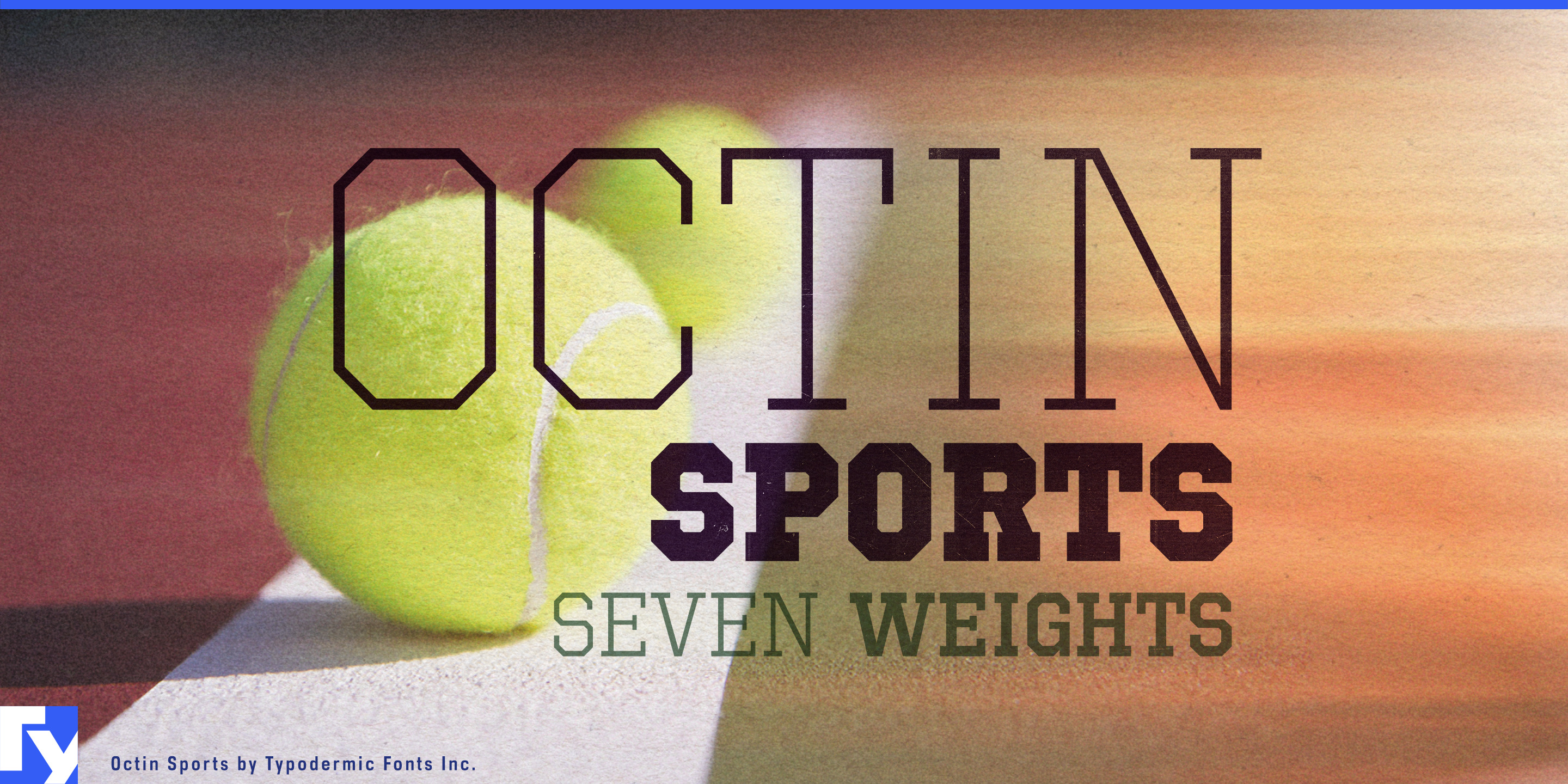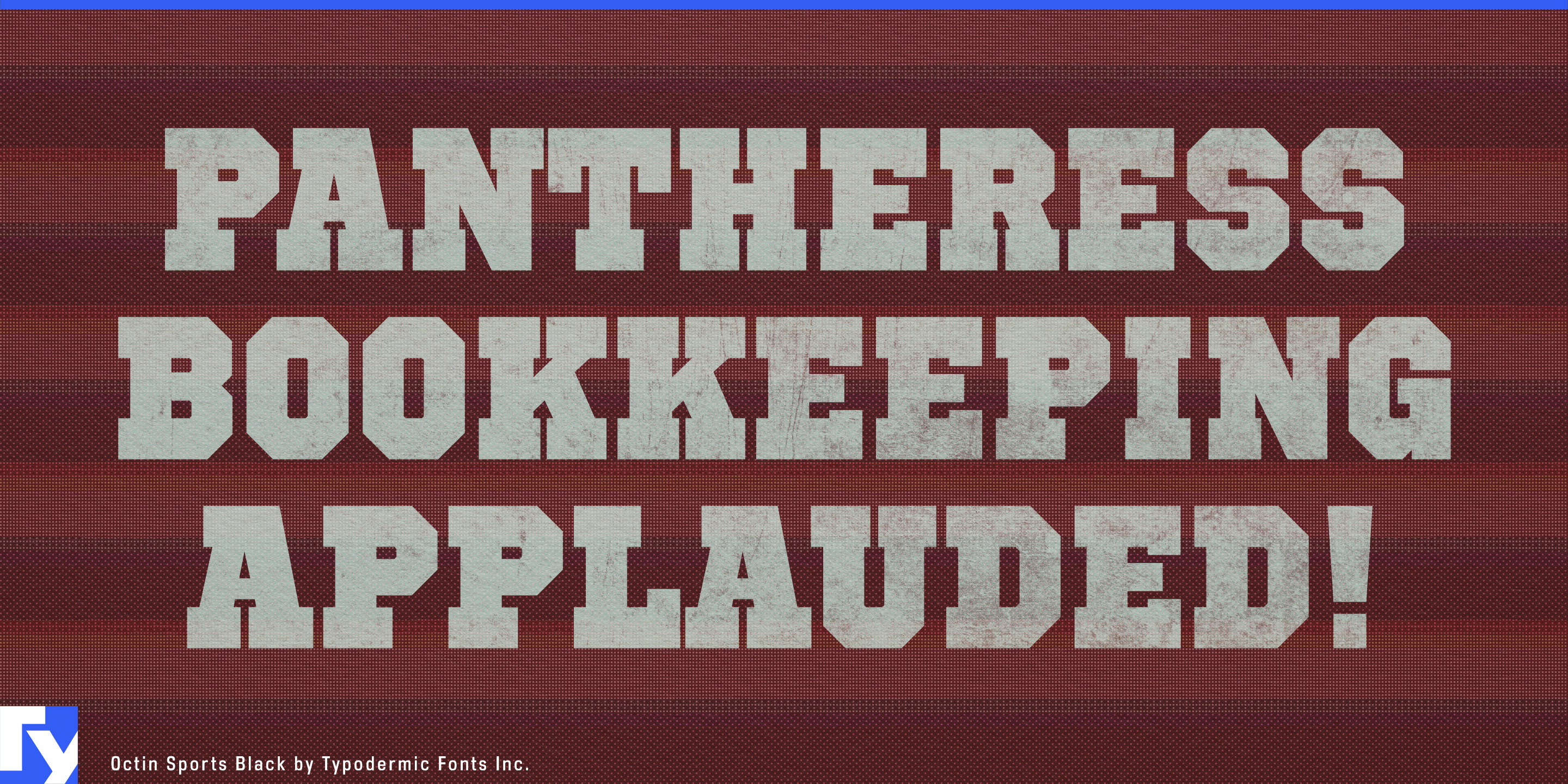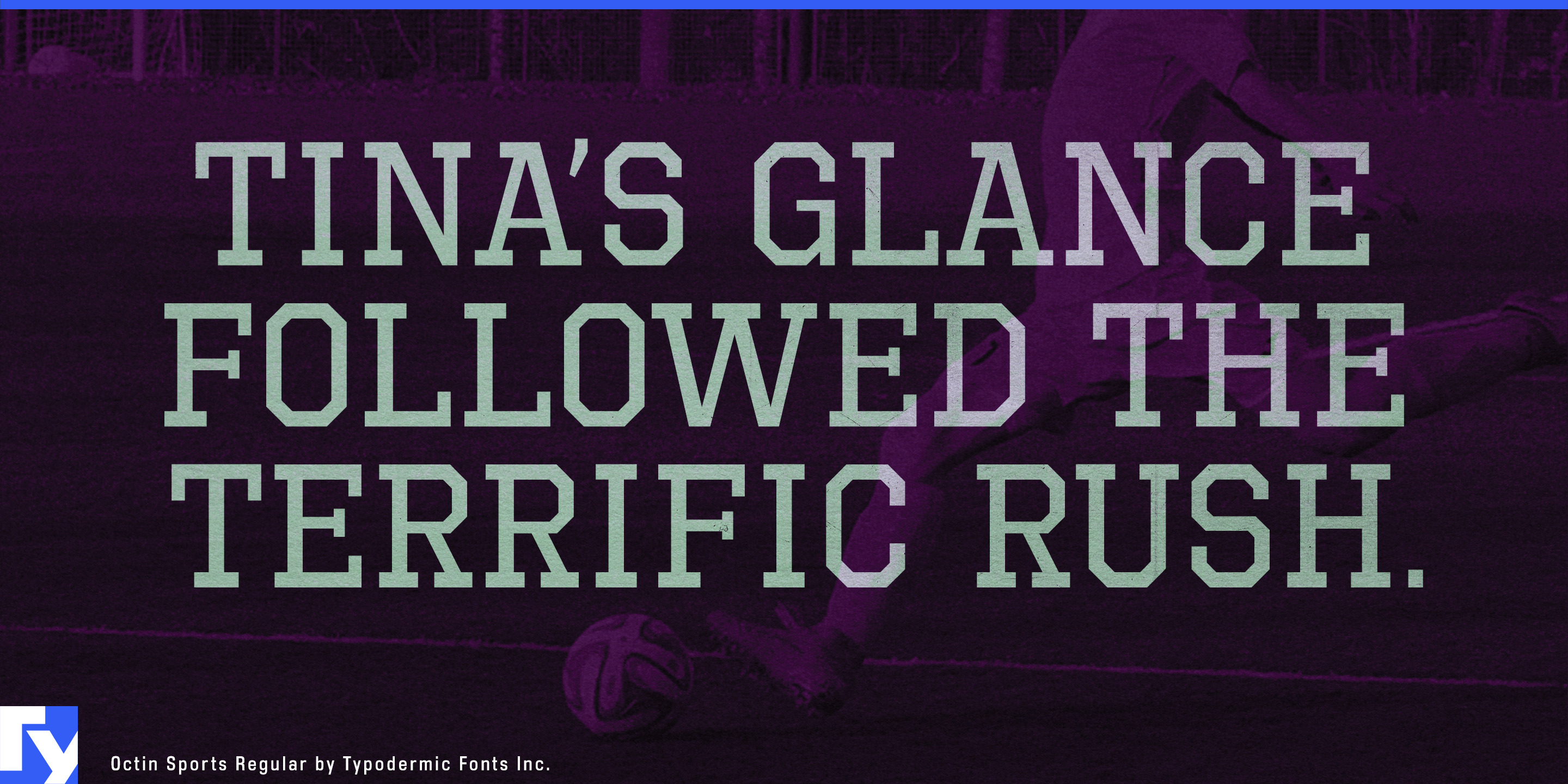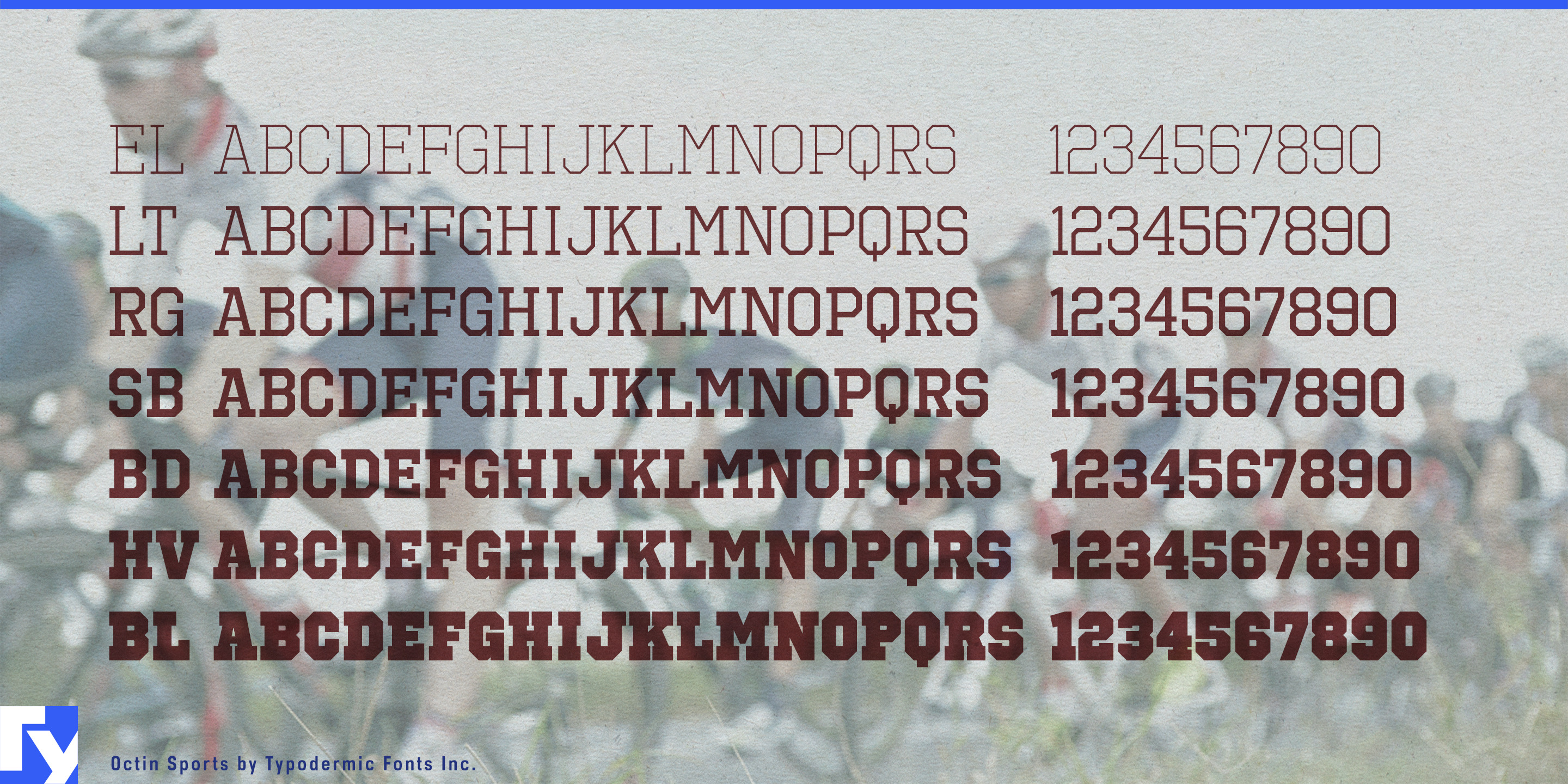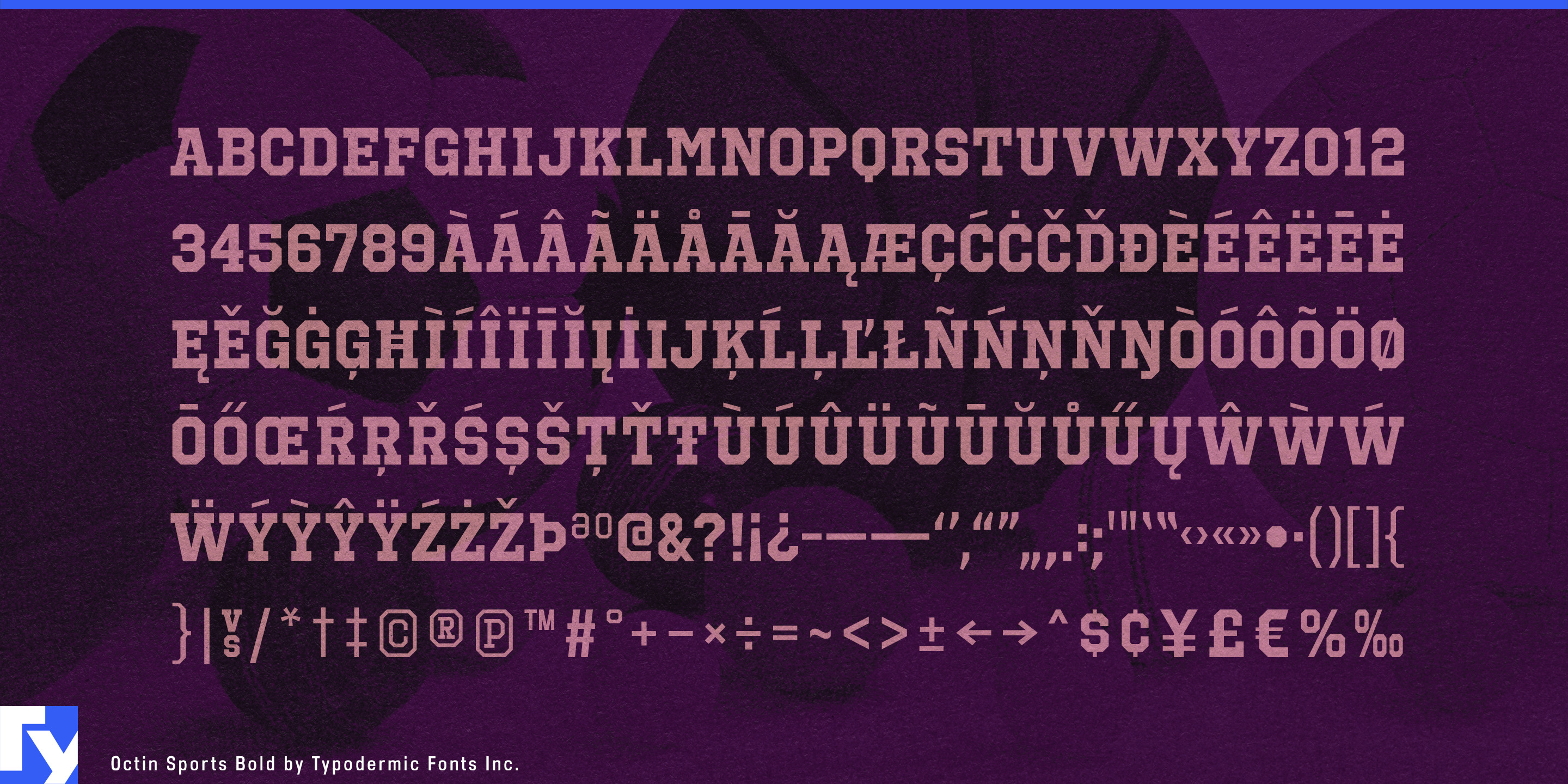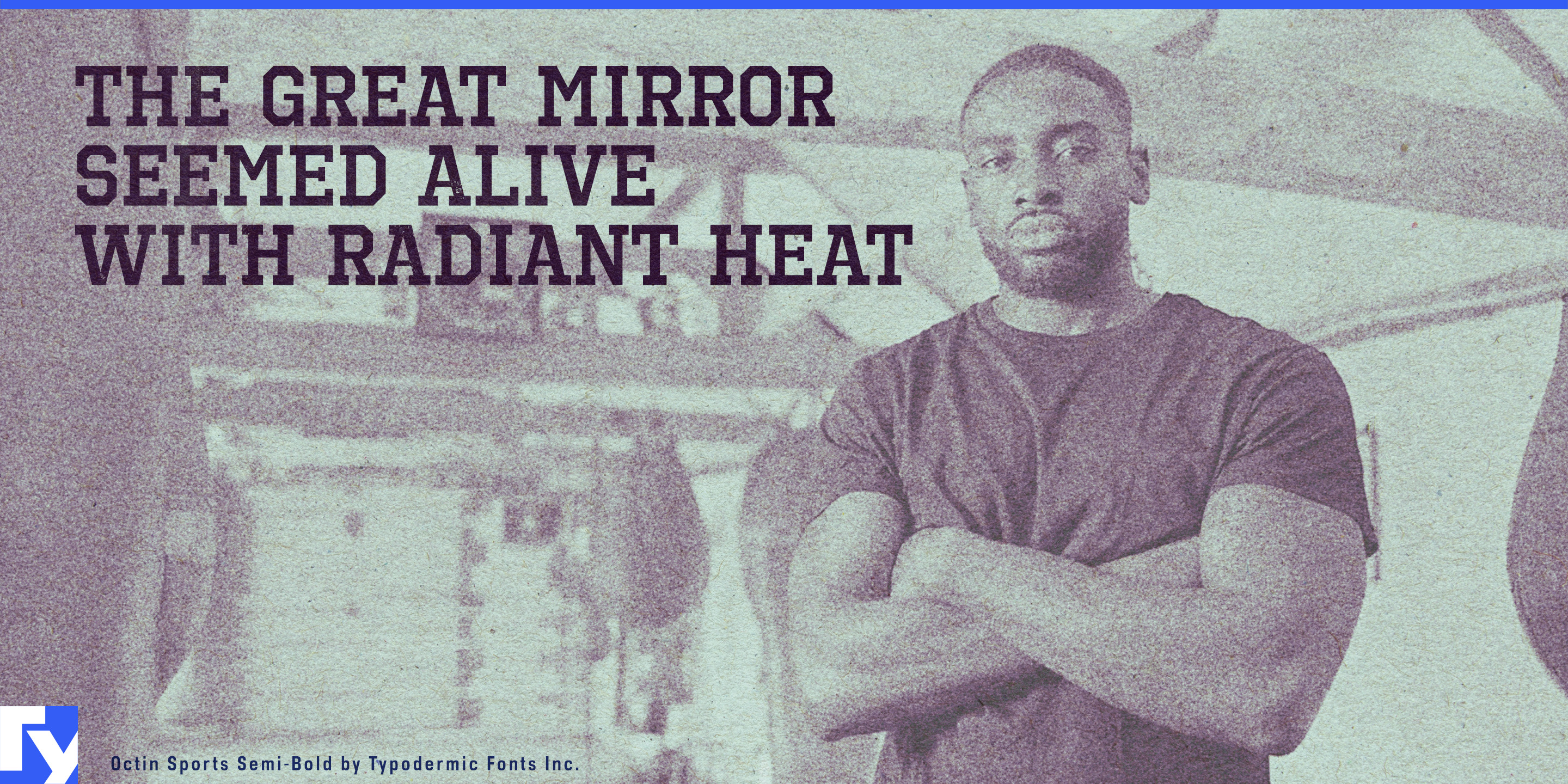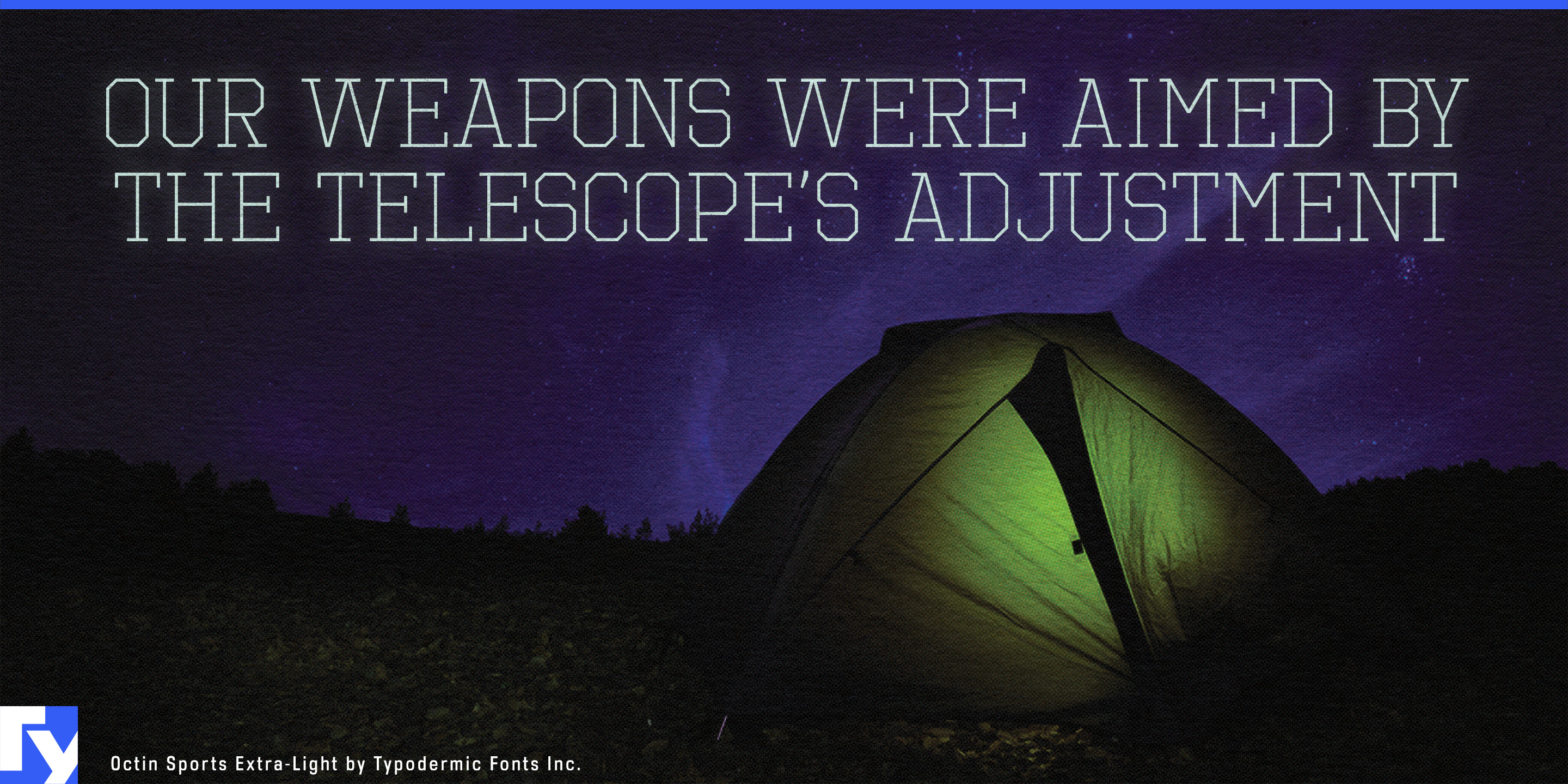
Octin Sports
Most varsity fonts can give you a team name. The problem starts when the team needs everything else.
Uniform lettering may be the most visible part of an athletic identity, but the same organization also needs season campaigns, roster announcements, arena graphics, training-facility displays, supporter merchandise and secondary headings. A single heavy athletic alphabet handles the chest perfectly and then forces designers to find another voice for the rest. Octin Sports turns octagonal varsity lettering into a broader display system.
The all-caps family spans seven weights from Extra-Light through Black. Its athletic slab-serif construction remains consistent across the range, but the changing weight gives it far more flexibility than a one-style jersey face. Heavy styles can carry team names and major campaign headlines; middle weights handle player names and promotional headings; the lightest styles introduce a more technical athletic voice for training environments and supporting display copy.
Professional and collegiate teams can use that range across an entire season. Uniform names and numerals, roster graphics, arena walls, tunnel displays, ticket graphics and supporter communications can remain recognizably part of the same organization without every message being set at maximum volume.
University athletic departments have an especially useful problem for Octin Sports to solve. Basketball, football, hockey, volleyball, lacrosse and other programs may need distinct campaigns while still belonging to one athletics identity. The coordinated weight range lets departments vary hierarchy and emphasis without assigning every sport a completely different display face. Octin College handles the wider academic institution; Octin Sports is for the teams representing it.
Stadiums, arenas and training centers extend that identity into physical space. Entrance statements, locker-room headings, player corridors, championship displays and training-area graphics need athletic character at very different scales. Supporter shirts, hoodies, caps, patches and bags can carry city names, divisions, slogans and season references beyond the primary logo.
Octin Sports belongs to a coordinated six-family series. Octin College handles non-athletic university identity; Octin Prison combines slab forms with stencil breaks for confinement and controlled environments; Octin Stencil handles tactical and logistical marking; Octin Vintage supplies worn heritage sports texture; and Octin Spraypaint applies a fresher painted surface. Octin Sports is the branch built around the team itself: athletic lettering that keeps working after the jersey is finished.